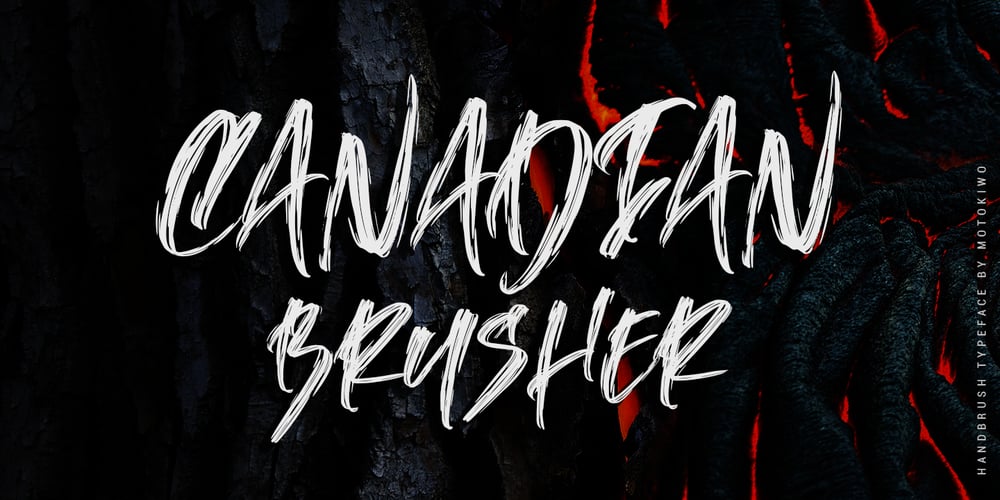
Canadian Brusher Font Family was designed by Anton Cahyono and published by Motokiwo. Canadian Brusher contains 1 styles and family package options. Canadian Brusher, hipster Hand-brush display font with stunning characters and texture. It’s all caps with numeral & punctuation and standard multilingual support. Very cool for multipurpose project.